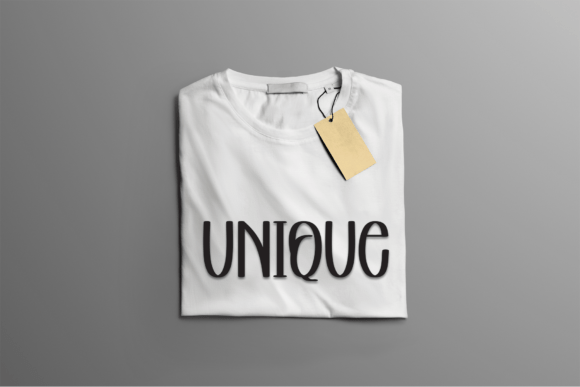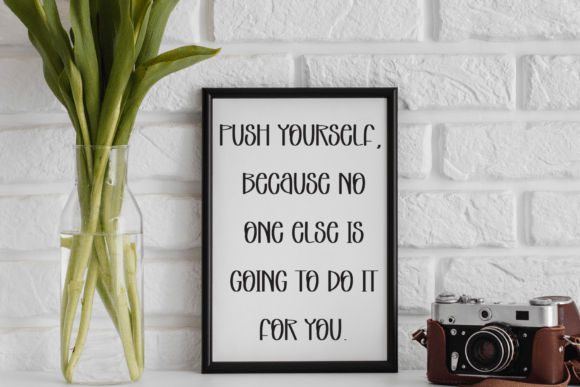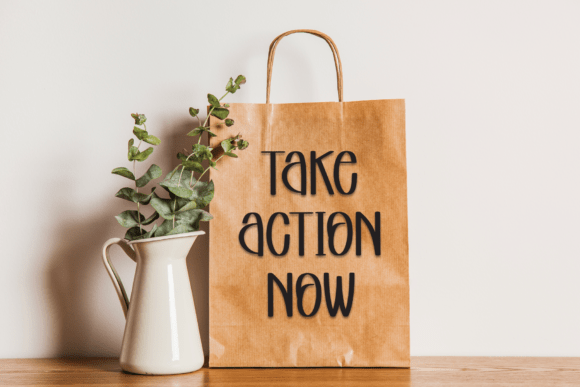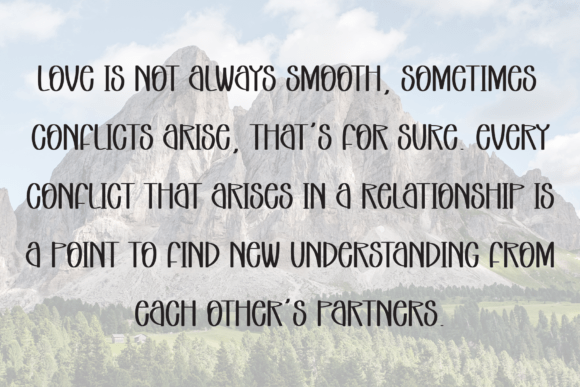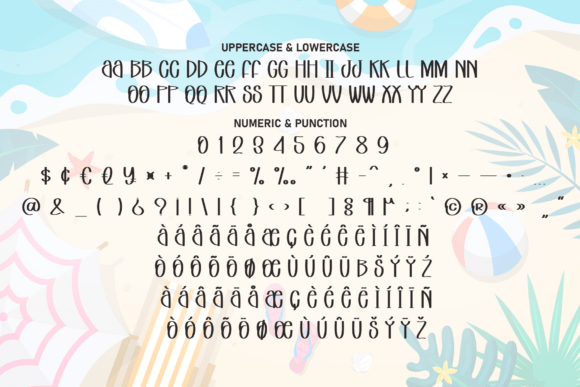
Introducing Beach Stickers Font: Elevate Your Designs with a Touch of Coastal Charm
Imagine a font that captures the essence of a serene beach, where the warmth of the sun meets the elegance of the sea. Our expertly handcrafted Beach Stickers Font is here to revolutionize your design endeavors, infusing them with a captivating, warm aura that sets it distinctively apart. This enchanting font is not just a collection of letters; it’s a gateway to creating designs that exude charm, affability, and a dash of lively sophistication.
A Font that Brims with Life and Character
Beach Stickers Font is meticulously designed to breathe life into your designs. Whether you’re crafting graceful wedding invitations, joyful greetings, or any project that craves an effervescent touch of elegance, this font is your perfect companion. Its curves and lines are not just aesthetically pleasing; they tell a story of warmth, friendliness, and an undeniable charm that resonates with everyone who lays eyes on it.
Redefining Fun in the Realm of Creativity
Working with Beach Stickers Font is an absolute delight. It redefines the concept of fun in the creative process, making every design project a joyful journey rather than a mundane task. Designers and crafters will find themselves immersed in a world of creativity, where bringing their vision to life is not just easy but also incredibly enjoyable.
Magically Transforming Your Design Vision
Step into the mesmerizing world of Beach Stickers Font and witness how it magically transforms your design visions into reality. This font is not just a tool; it’s a magic wand that adds a sprinkle of lively elegance to any design. It’s perfect for those who wish to add a coastal charm to their creations, making them stand out in a sea of ordinary designs.
Beach Stickers Font is versatile and can be used for a multitude of design projects. Here are a few ideas to get you started:
- Wedding Invitations: Add a touch of elegance and charm to your wedding invitations, making them truly unforgettable.
- Party Greetings: Whether it’s a birthday, anniversary, or any celebration, this font will make your greetings sparkle with joy and warmth.
- Branding and Packaging: Elevate your brand’s aesthetic with a font that exudes warmth, friendliness, and sophistication.
- Social Media Graphics: Stand out on social media with eye-catching graphics that capture the essence of the beach.
Why Choose Beach Stickers Font?
There are countless reasons why Beach Stickers Font should be your go-to choice for your next design project:
- Unique and Captivating: Its unique design ensures your projects stand out.
- Versatile: Suitable for a wide range of design projects.
Beach Stickers Font is more than just a font; it’s an experience. It’s a chance to infuse your designs with a touch of coastal charm, making them not just visually appealing but also emotionally resonant. Whether you’re a designer, crafter, or simply someone who loves to dabble in creativity, this font is sure to become your favorite tool for bringing your visions to life. Dive into the enchanting world of Beach Stickers Font today and discover a new dimension of design possibilities.